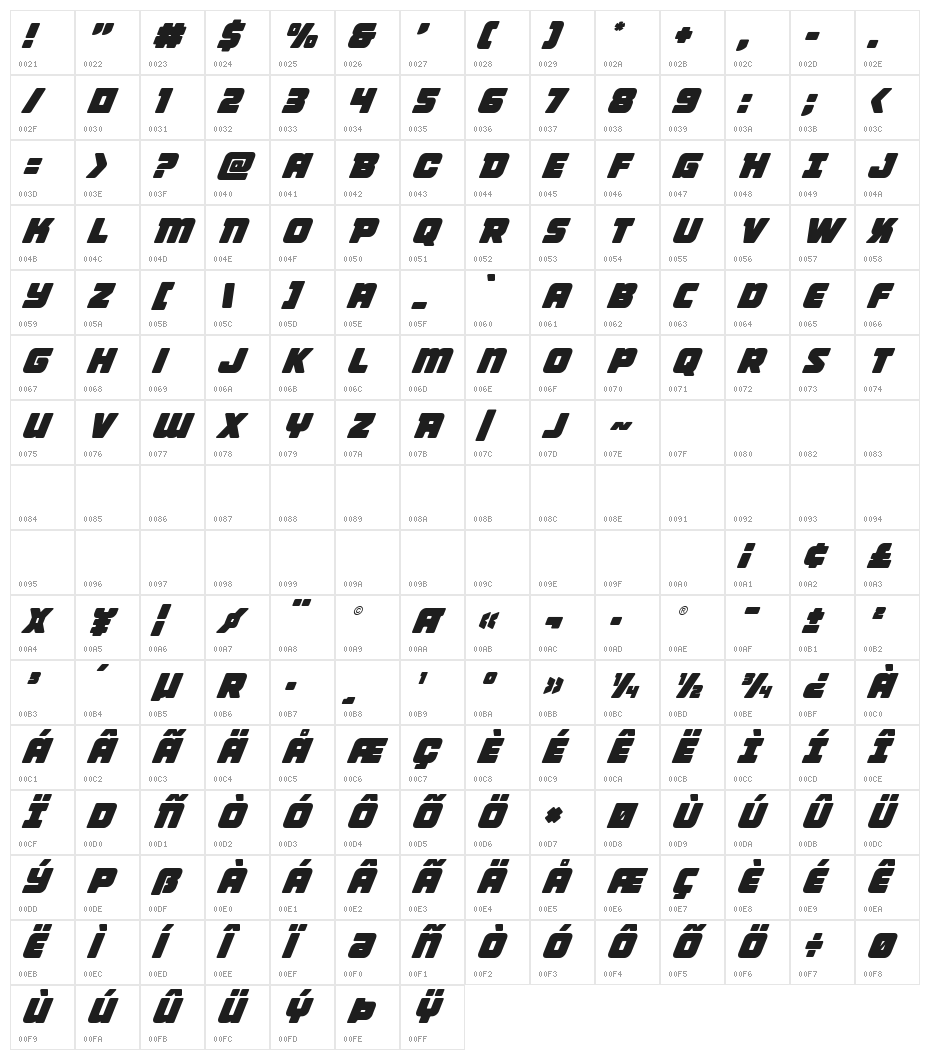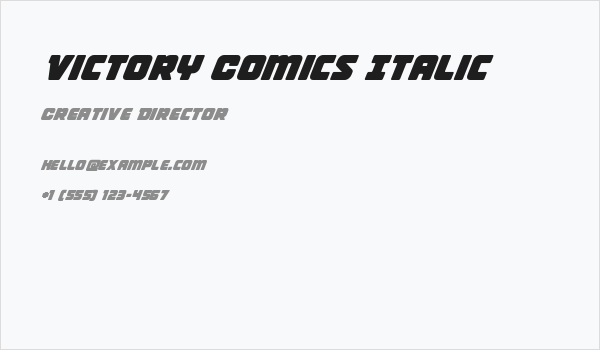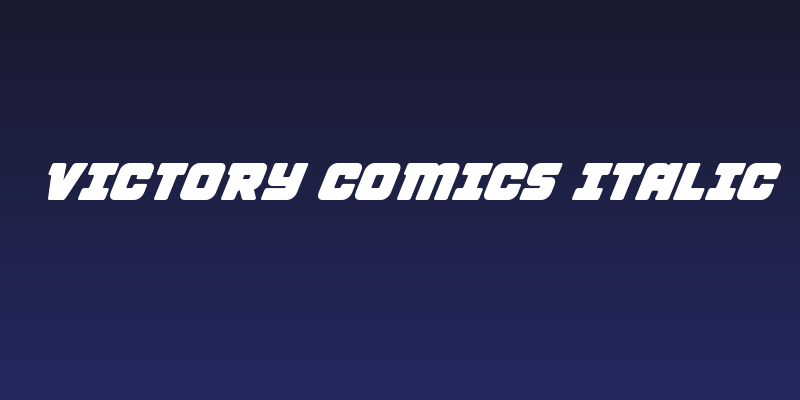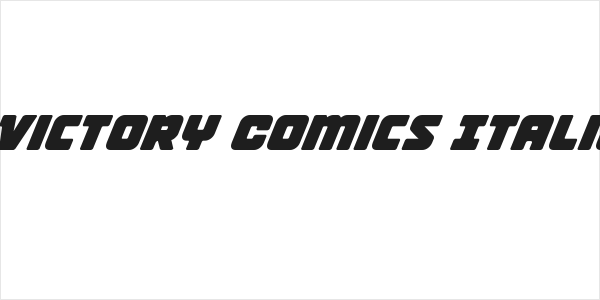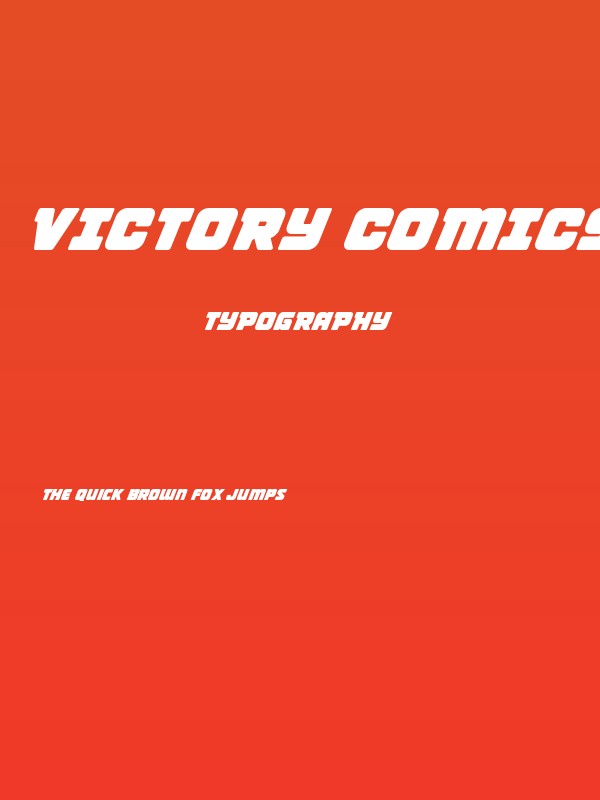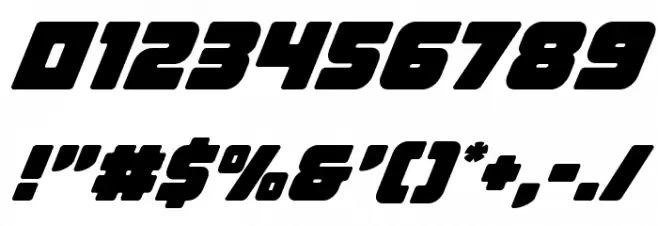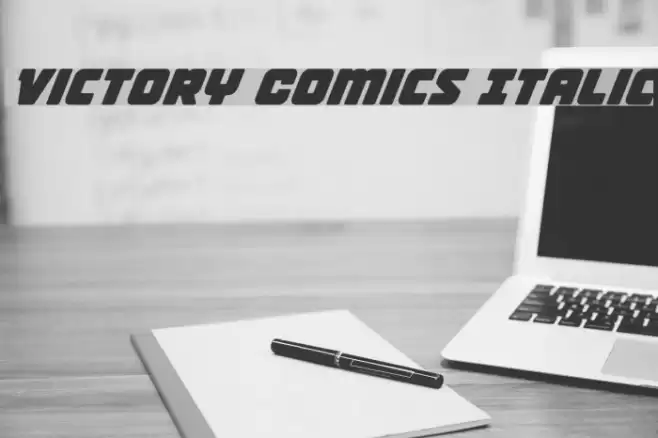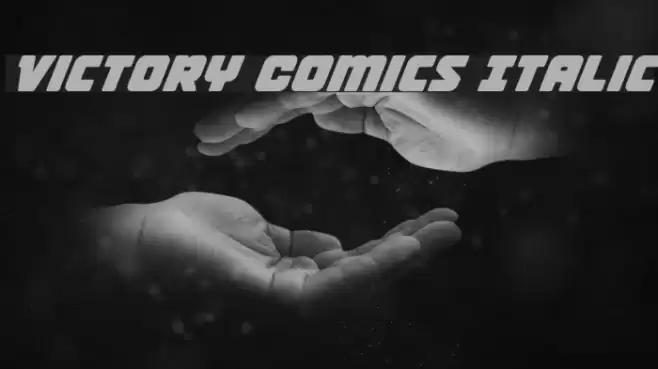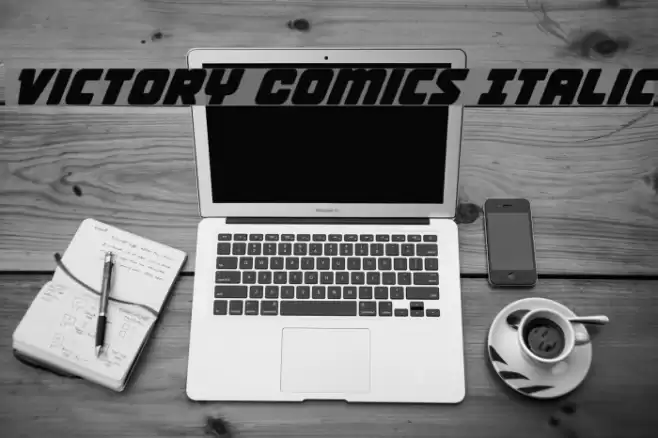
Victory Comics Italic Font
Victory Comics Italic Description
This font features a bold and dynamic style with a strong italic slant, giving it a sense of motion and energy. The characters are thick and robust, with a slightly condensed width that enhances their impact. The strokes are consistent in weight, providing a uniform appearance across all characters. The design is reminiscent of comic book lettering, with a playful yet assertive presence. The uppercase and lowercase letters maintain a cohesive look, while the numerals and special characters are crafted to match the overall aesthetic. This font is ideal for projects that require a bold and energetic typeface.
| Width | Condensed |
| Overall Style | Modern, Decorative |
| Proposed Projects | Comic books, posters, video game graphics, and branding materials. |